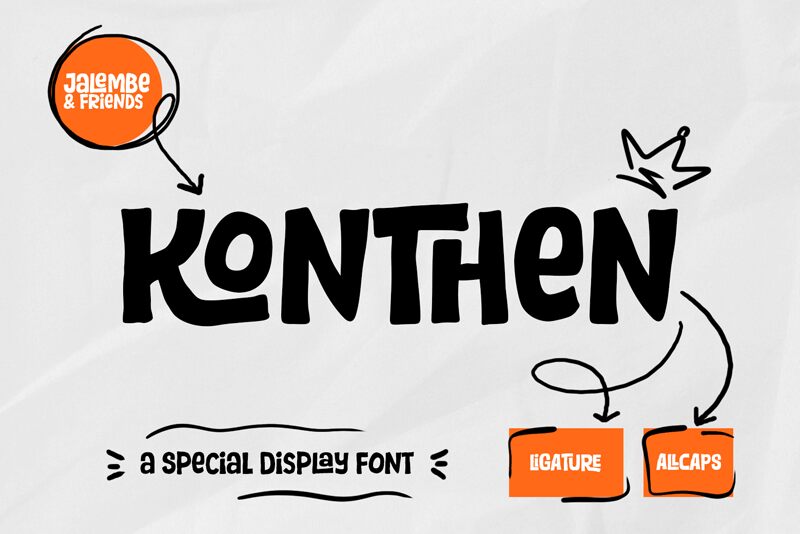
Konthen font by Khurasan is a free cartoon font with an energetic essence that immediately snatches the viewers’ attention. The informal typeface will breathe life into your projects in a contemporary and expressive manner. Each character will provide instant freshness and a dynamic feel where you plan to take your typography.
Consider using it when developing posters, advertisements, packaging designs, social media artwork, or print publications. Personal design projects such as greeting cards and beautiful wall art will also look fabulous when you use this display font in them.